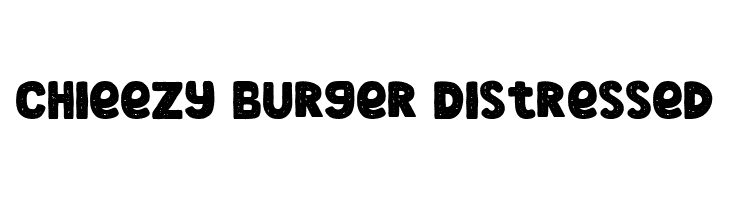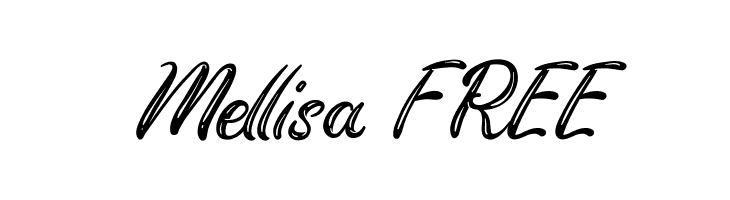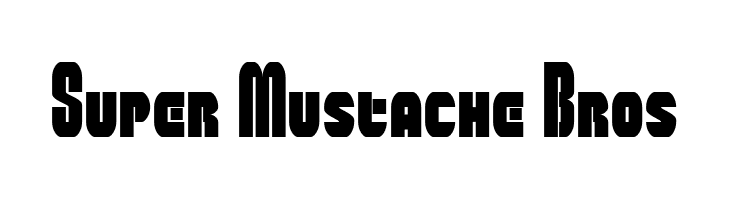
A dynamic and elegant script font with smooth, connected letterforms.
A light, italicized font with elegant, flowing characters and generous spacing.
A bold, playful font with a retro and whimsical design.
A geometric, 3D block-style font with a modern and futuristic look.
A bold, halftone-effect font with a modern, dynamic style.
A playful, informal handwritten font with uneven strokes and a lively feel.
A bold, condensed italic font with a modern and dynamic style.
A bold, decorative font with a unique lined texture for a three-dimensional effect.
A dynamic and flowing script font with elegant, cursive strokes.
A playful, comic-style display font with a hand-drawn appearance.